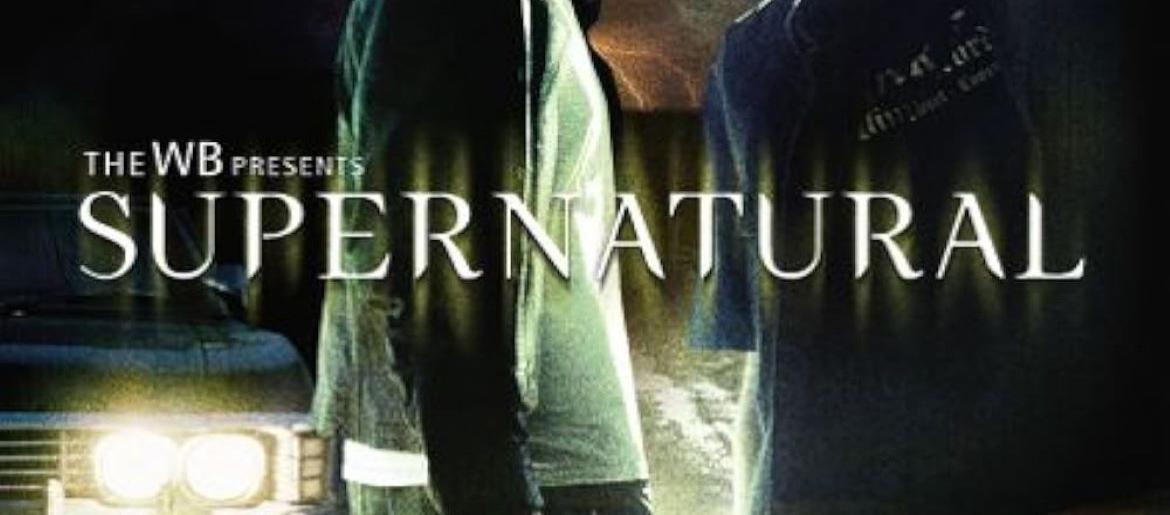
Supernatural Font
Supernatural Font perfectly captures the eerie, mysterious energy of the long-running TV series Supernatural. Its slightly weathered, carved-stone letterforms evoke ancient inscriptions and forgotten spellbooks, setting the mood for monster hunting and dark adventures.
About Supernatural
Supernatural aired from 2005 to 2020, following brothers Sam and Dean Winchester as they battle monsters, demons, and other supernatural threats. The series is celebrated for its blend of horror, fantasy, humor, and strong character development over fifteen seasons.